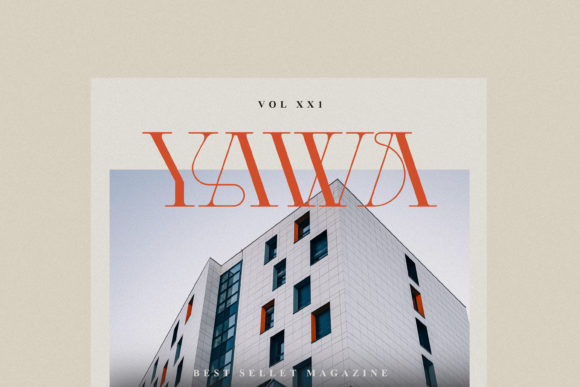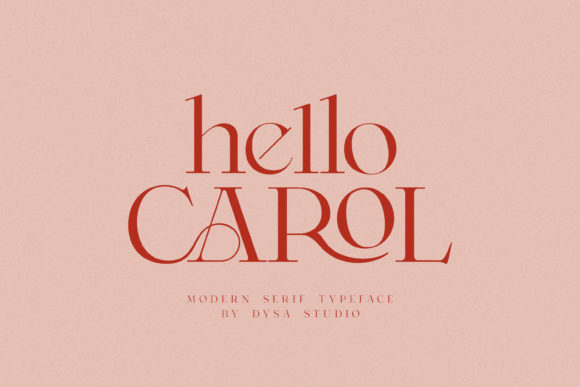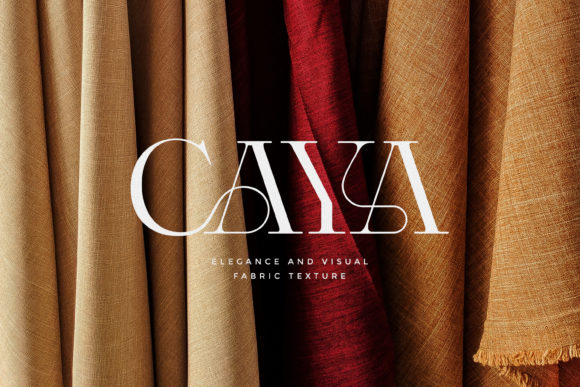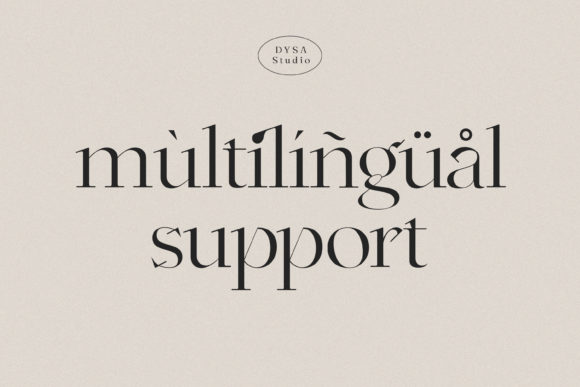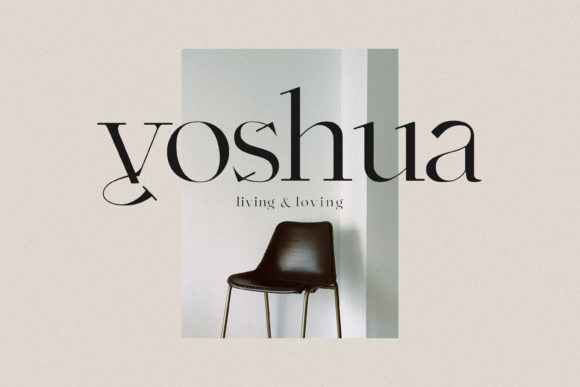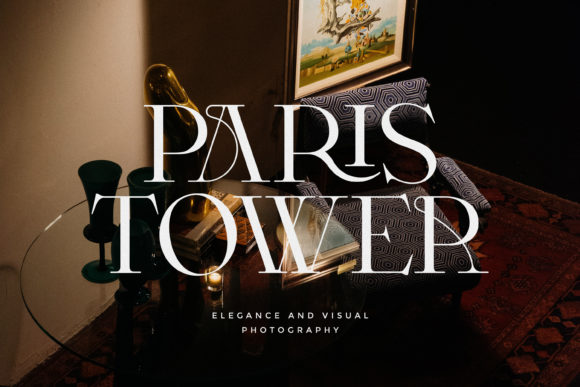
The Elegant Allure of Gladies Font: A Designer’s Delight
I’ll never forget the time I was working on a luxury branding project, and my client asked for a font that exuded elegance and sophistication. I scoured the internet, tried out countless fonts, but nothing seemed quite right. That was until I stumbled upon Gladies Font. With its thin, lettered yet imposing serif design, it instantly captured the essence of what my client was looking for. In this article, I’ll share my experience with Gladies Font, its features, and how to make the most of it in your designs.
An Honest Review of Gladies Font
- ✨ Elegant and sophisticated design that’s perfect for luxury branding, high-end product packaging, and editorial projects.
- ✅ Thin lettering that adds a touch of refinement and poise to any design.
- 💫 Imposing serif details that give the font a sense of grandeur and drama.
- 🎨 Highly versatile and can be used for a variety of creative projects, from digital to print.
While Gladies Font is an exceptional font, there are a few things to keep in mind:
- 🤔 The font’s thin lettering can be challenging to read at small sizes, so it’s best used at larger sizes or for headlines.
- ⚠️ Some of the font’s serifs can be quite delicate, so be cautious when using it for designs that will be printed on lower-quality paper.
The Story Behind Gladies Font
Gladies Font was designed by a team of typographers who wanted to create a font that embodied elegance and sophistication. Inspired by classic serif fonts, they crafted Gladies Font to be a modern take on traditional typography. With its thin lettering and imposing serifs, Gladies Font is the perfect choice for designers looking to add a touch of luxury to their projects.
| Font Name | Gladies Font |
| Author | DYSA Studio |
| What type of projects is Gladies Font best suited for? | Gladies Font is perfect for luxury branding, high-end product packaging, editorial projects, and digital designs that require an elegant and sophisticated touch. |
| Is Gladies Font available in different weights or styles? | Yes, Gladies Font comes in a range of weights and styles, making it versatile and adaptable for different design projects. |